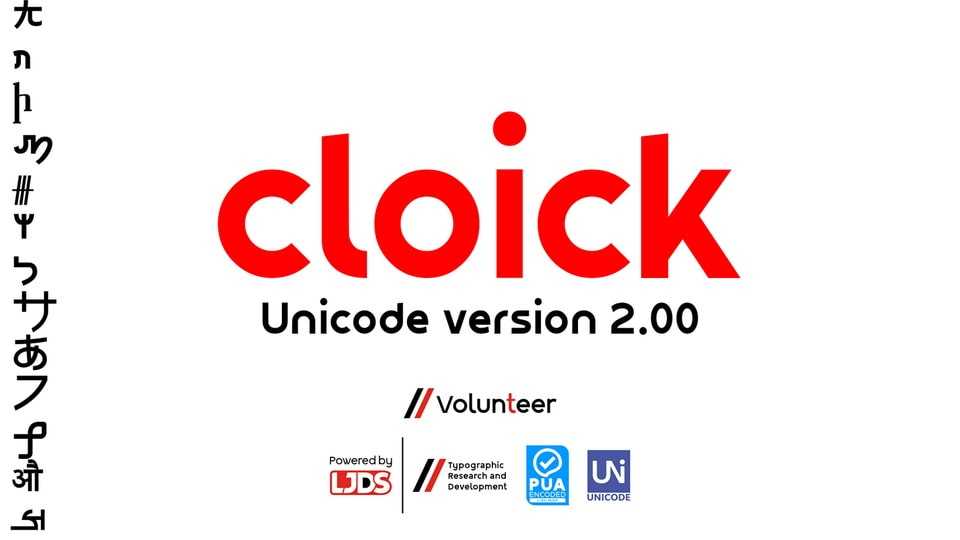
Download Cloick font, a typography project based on geometry and distortion of small scale contours. The purpose of the source is to group a number of important languages with a style not customary to the usual.
Designer: Luis Jaramillo